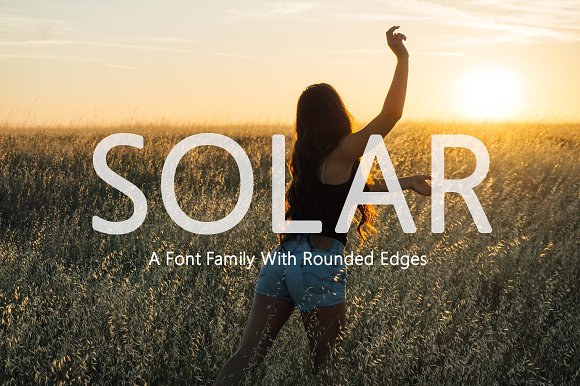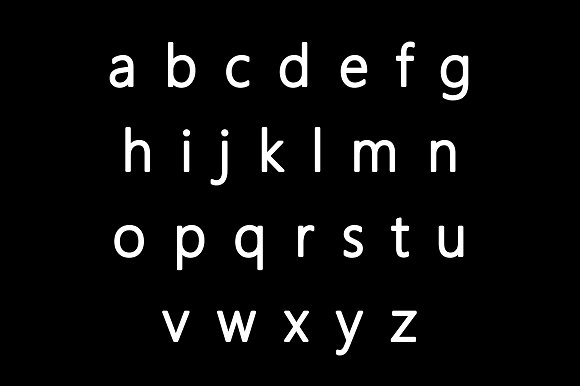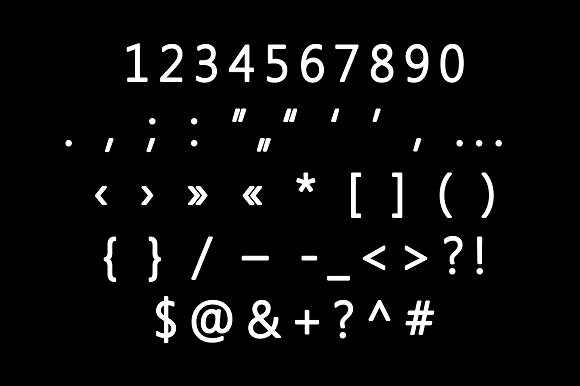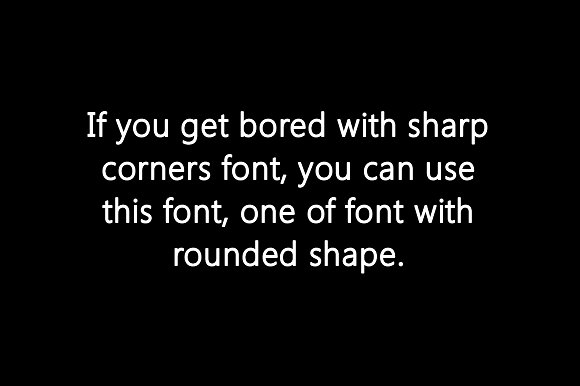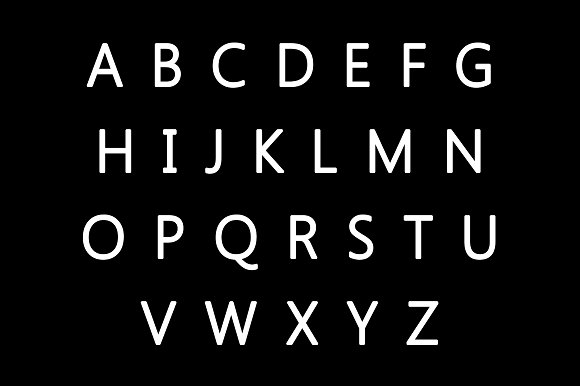
Solar Sans Serif Font
Why we use rounded shape for font, because rounded shape is sexy & beautiful. When you get bored of fonts with sharp corners, try Solar, a font family with rounded edges. Let’s move on to the rounded shape font. Feel free to comment or input in order to become better font!